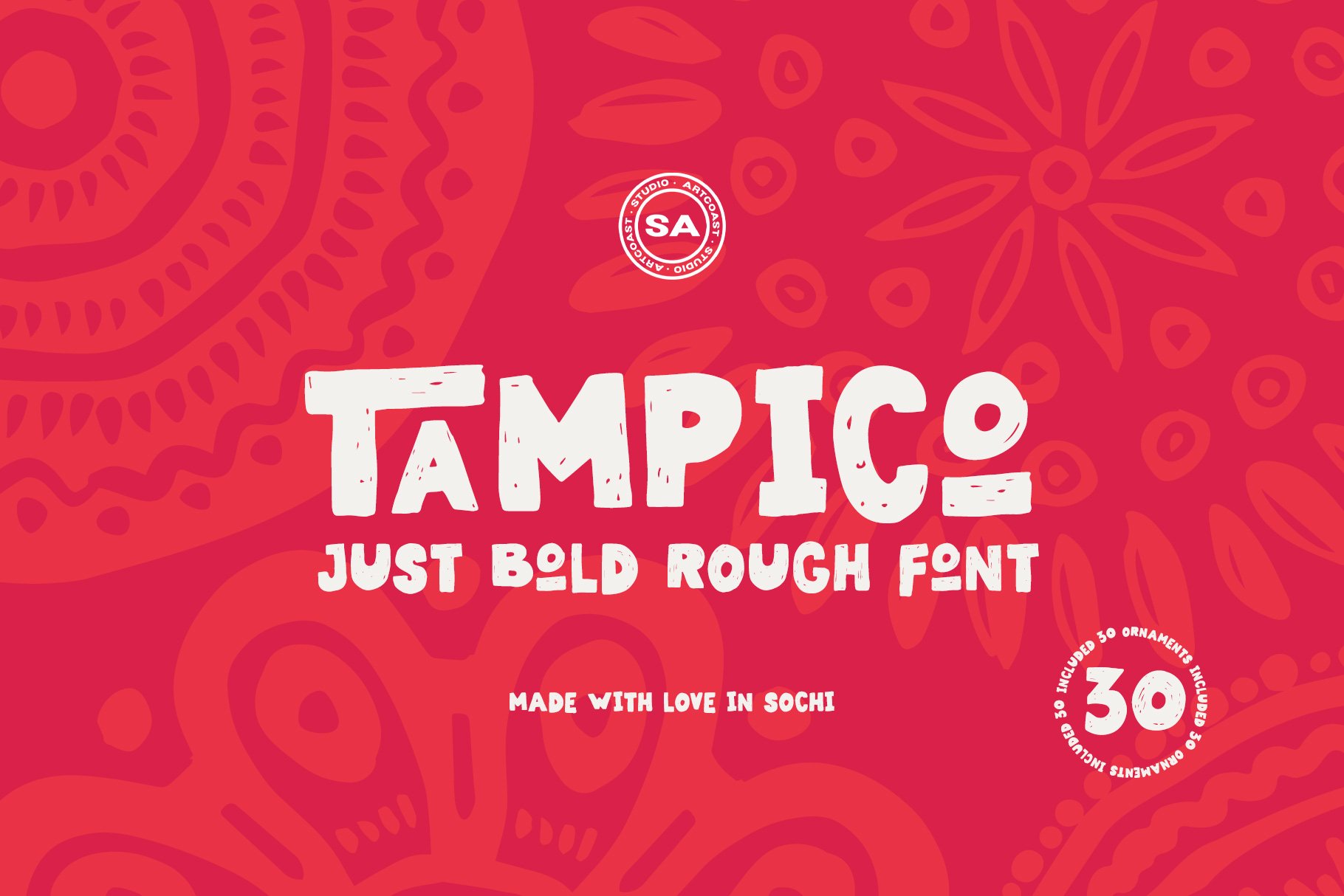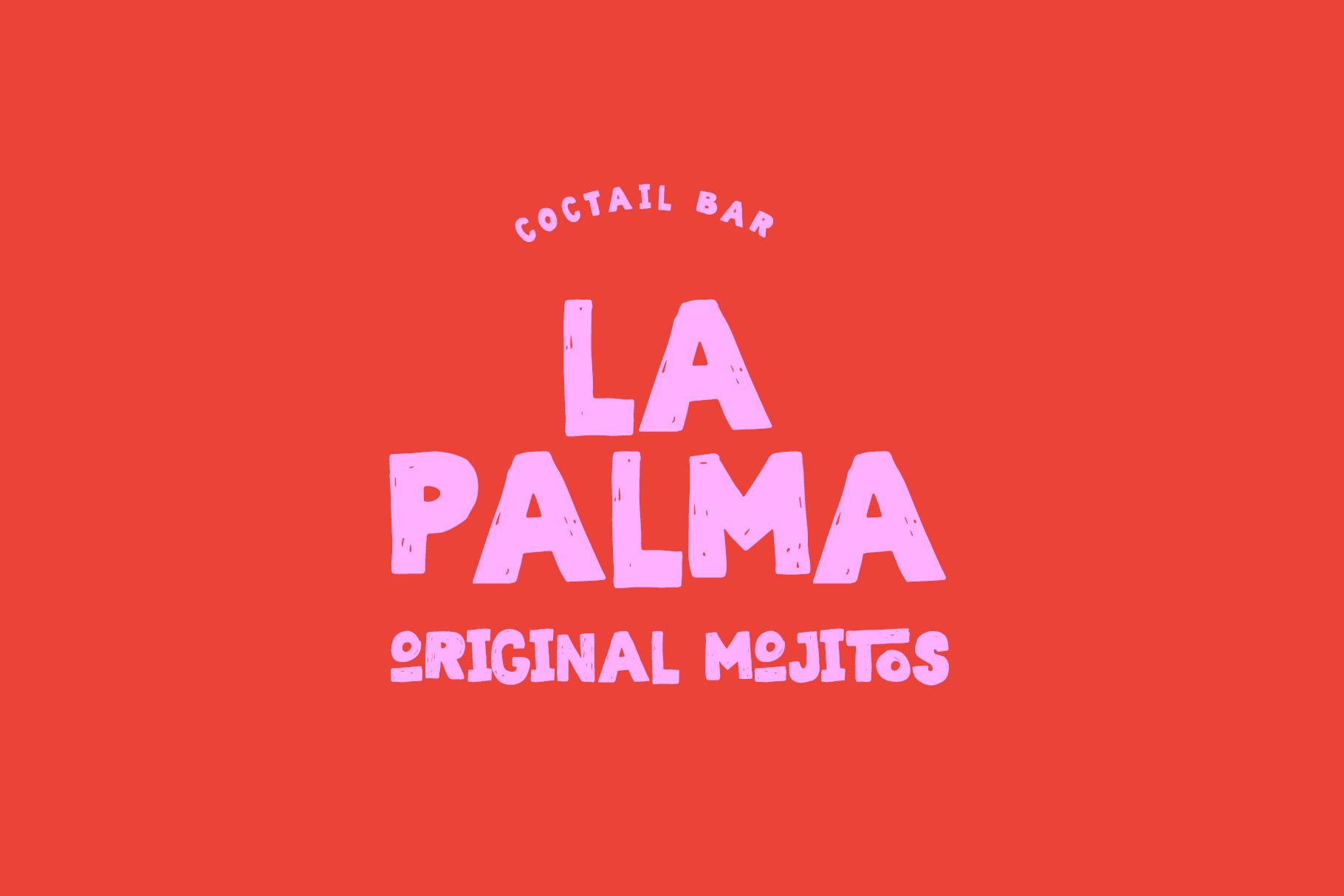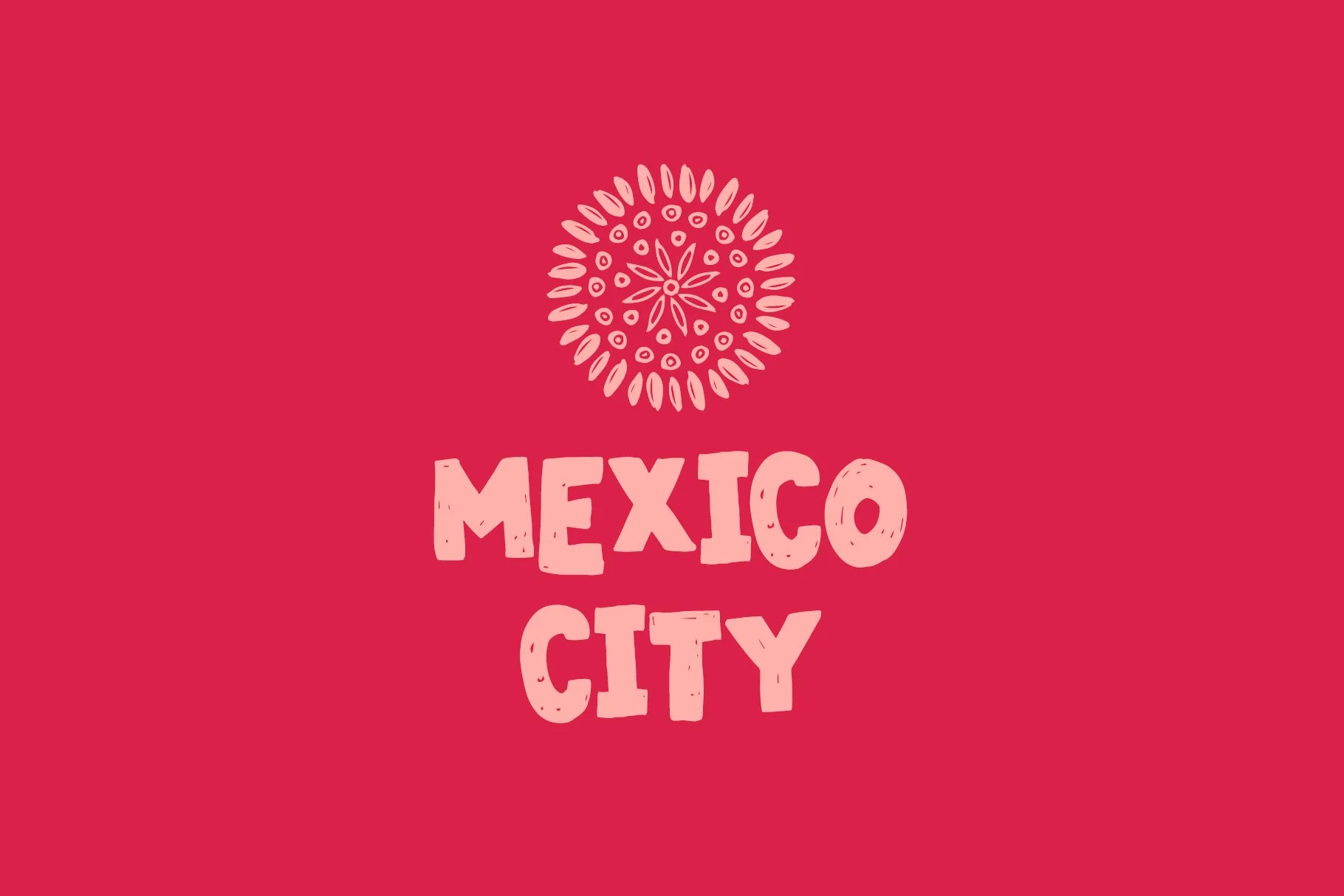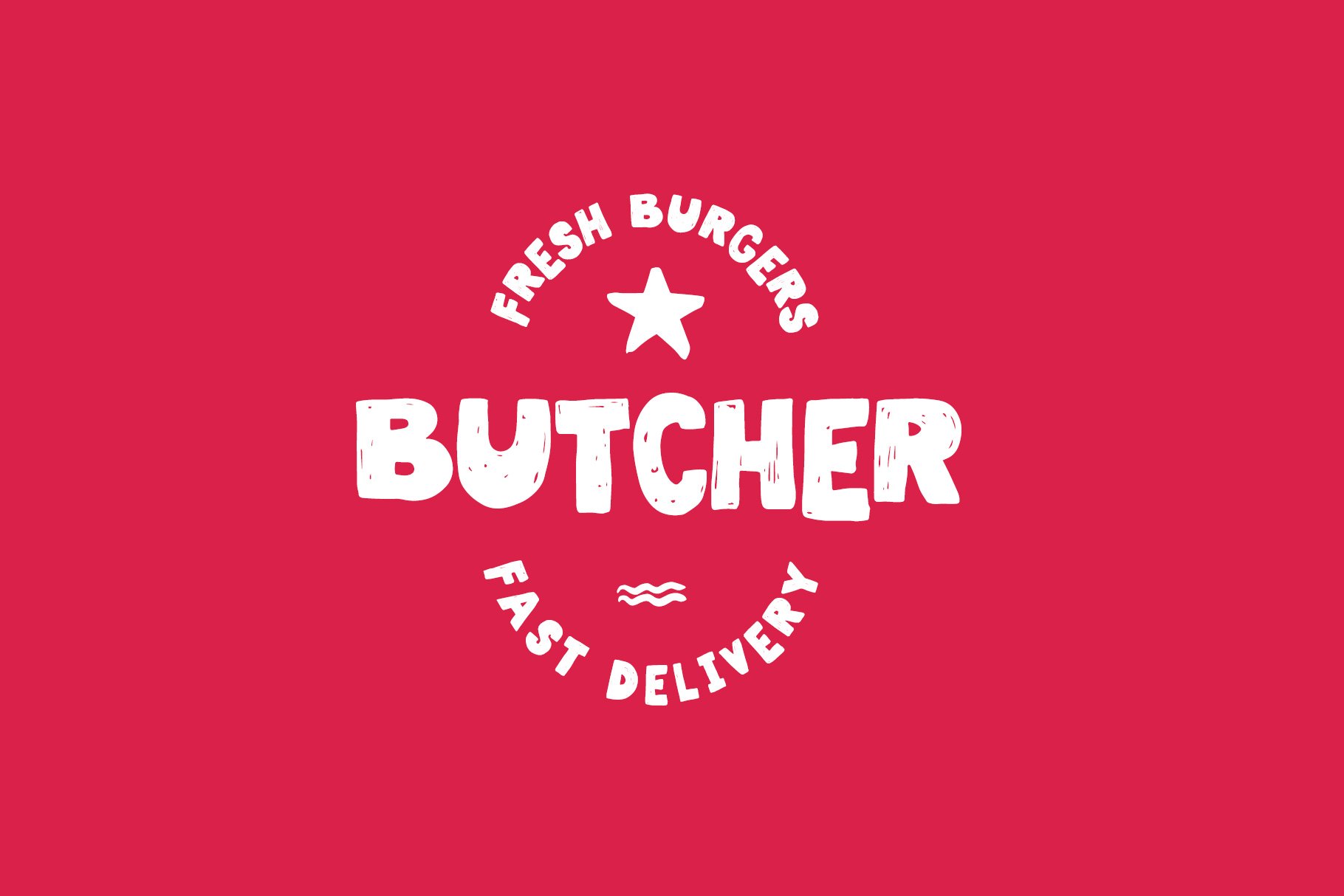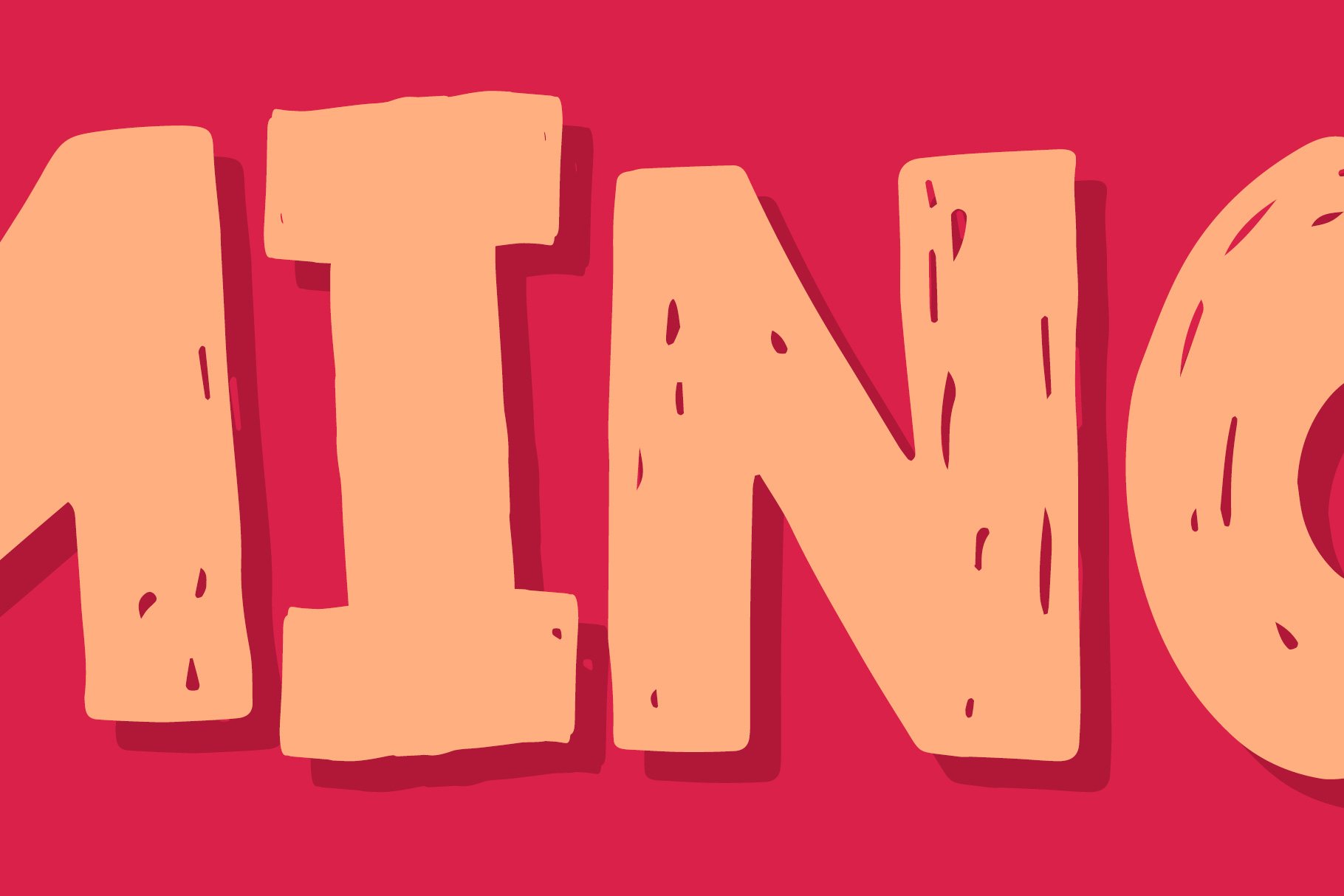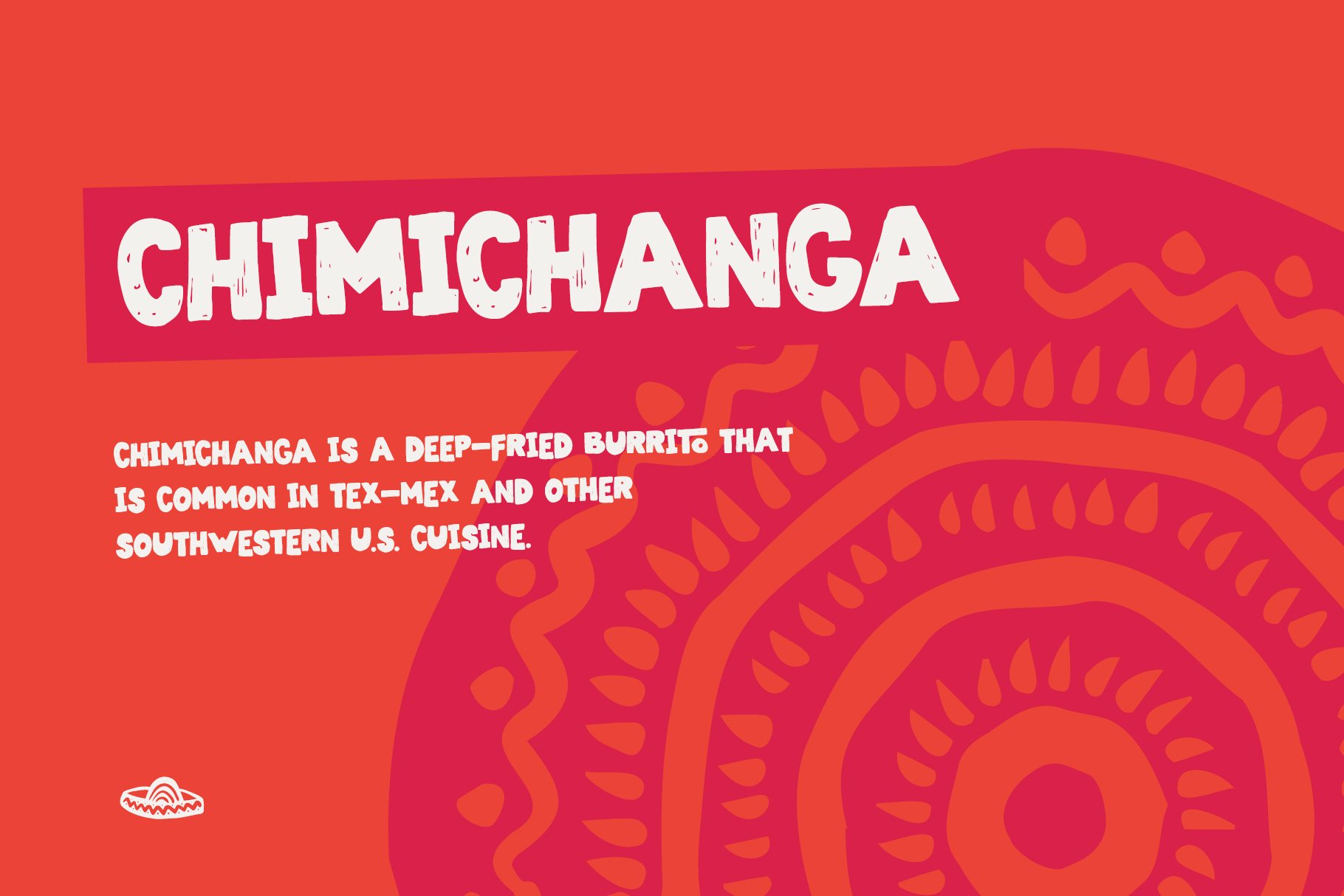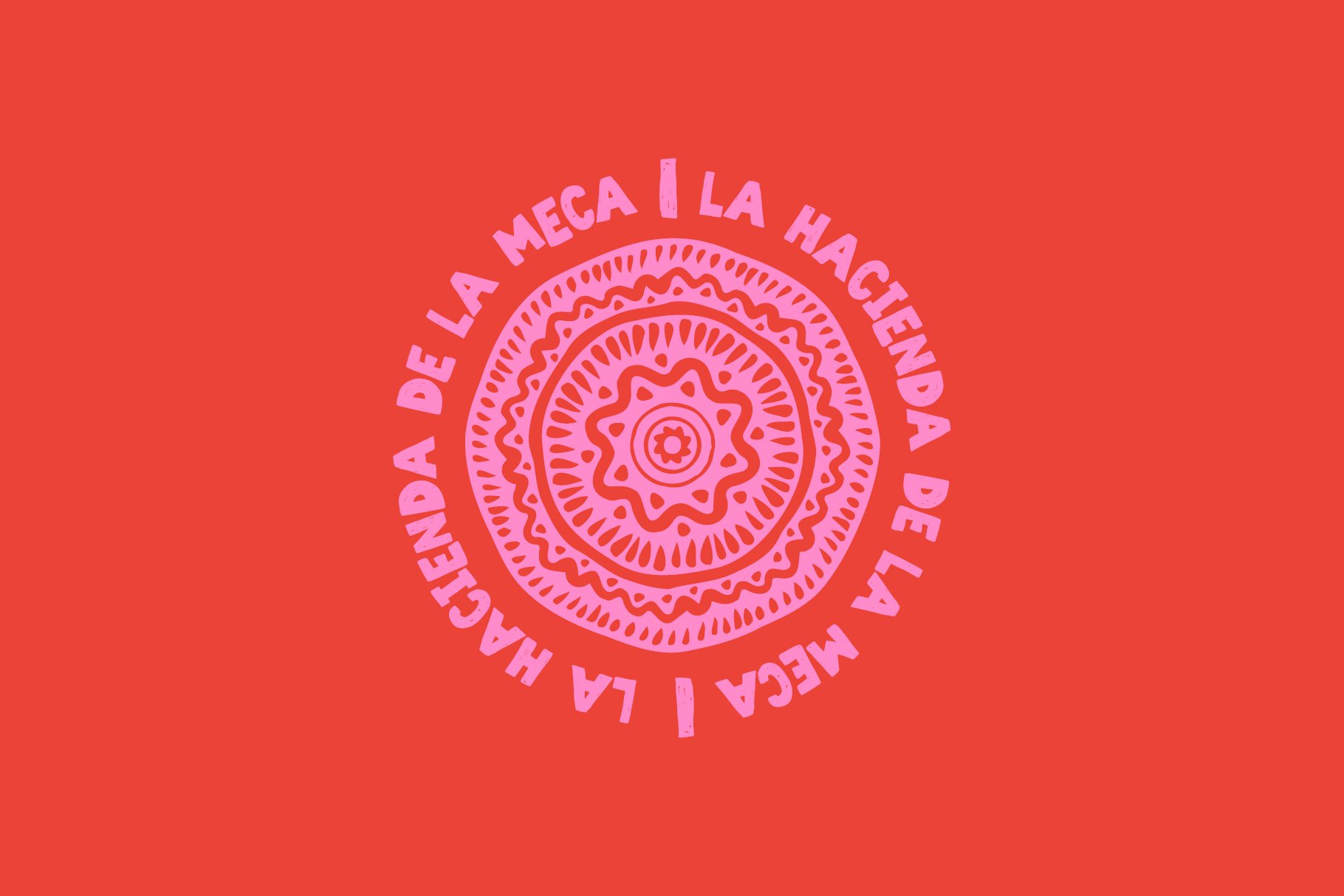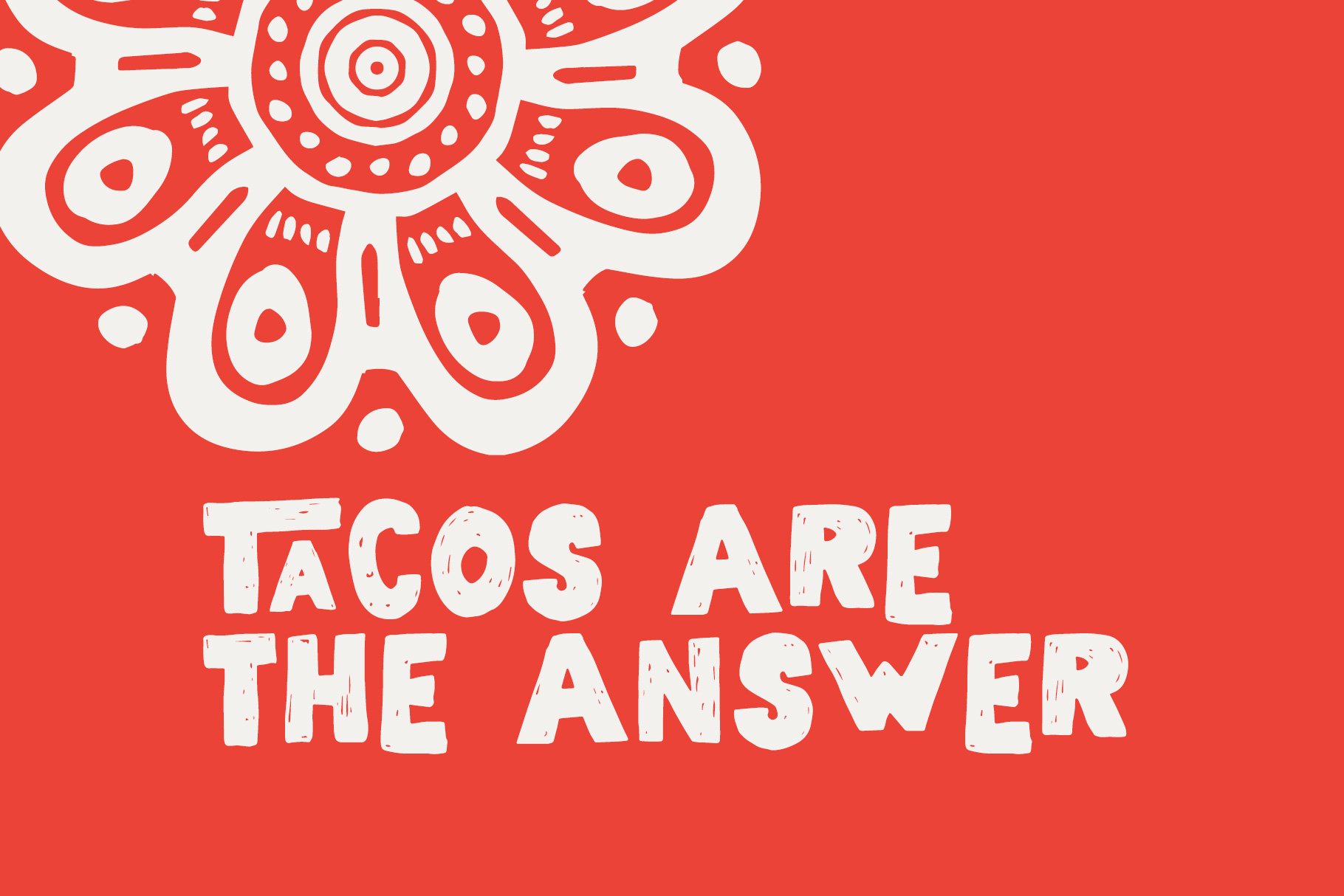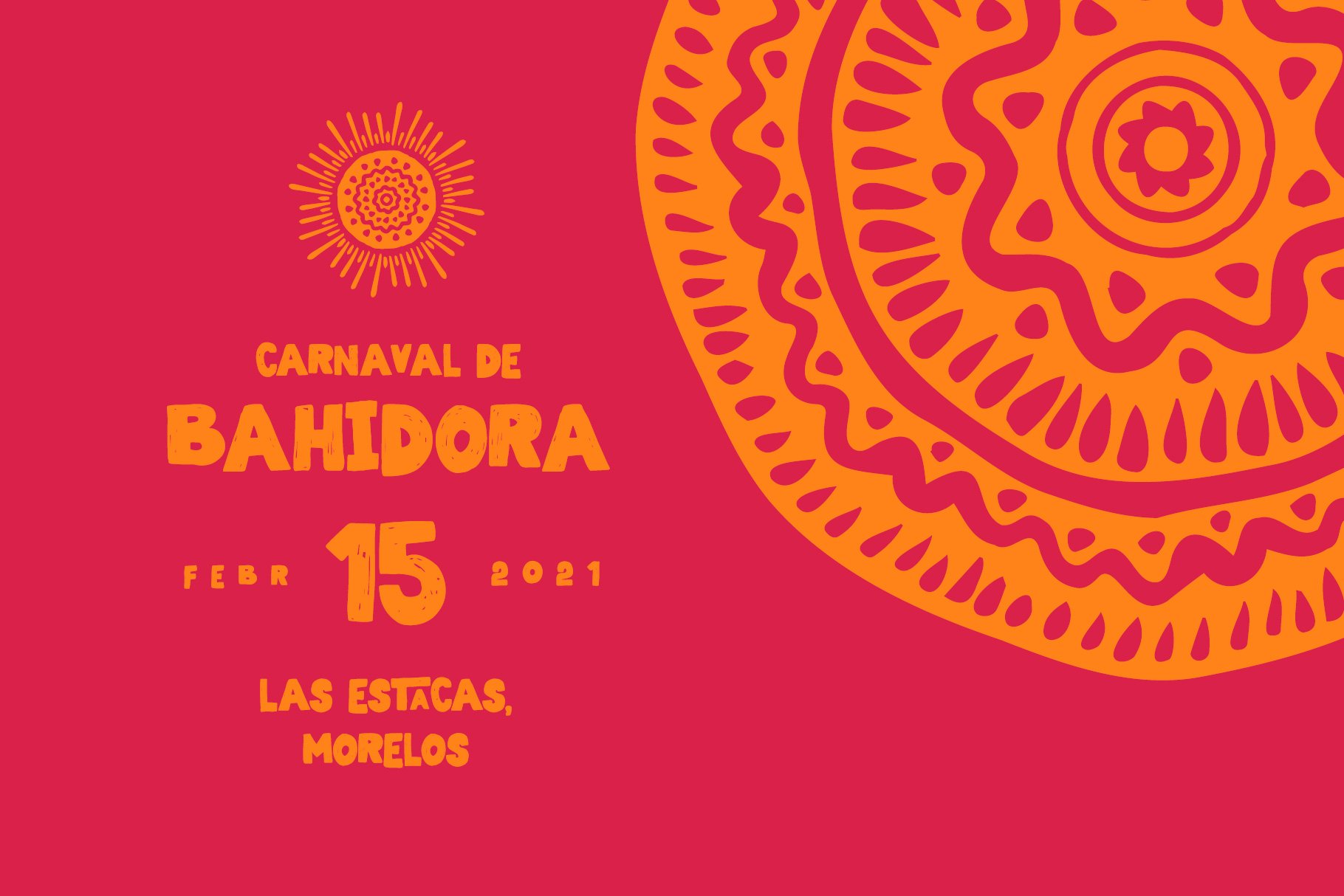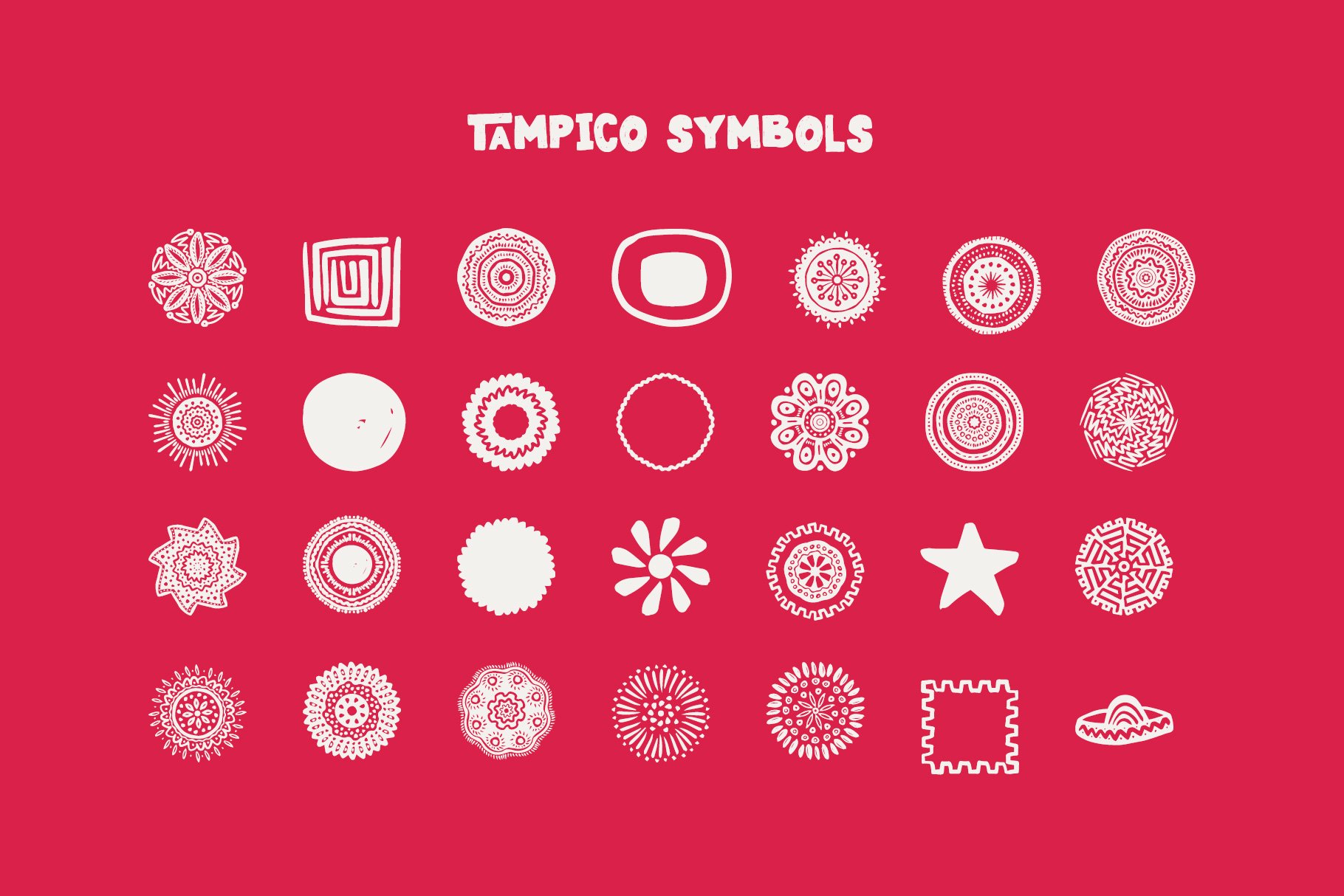
Tampico Typeface: Bold, Modern, and Versatile
For designers who need a little edge to their projects, Tampico Typeface is the ideal all-in-one solution. With its rough version featuring 80+ glyphs and alternative characters, you get a bold, modern look that immediately commands attention. Plus, all the gritty details add an unexpected twist of sophistication to whatever design project you embark on.
But these fonts are more than just good looks – they’re also incredibly versatile and easy to use. Just select your preferred font from the kit and create logos, shortcuts and other design elements in minutes. And with the logos included in the kit, you can add a rustic finishing touch to make everything truly come together. Whether you’re aiming for rugged or refined, Tampico Typeface has it all for designers who demand the best of both worlds.
Features:
• Accents (Multilingual characters)
• Stylistic Alternates